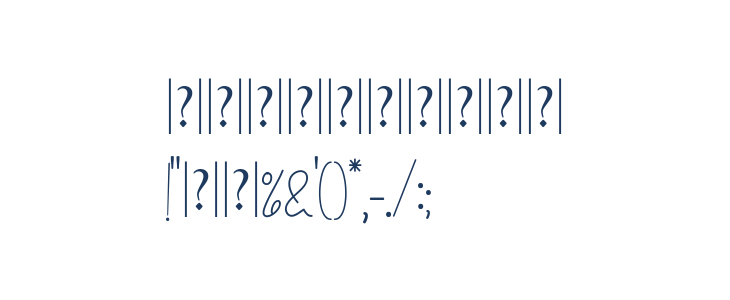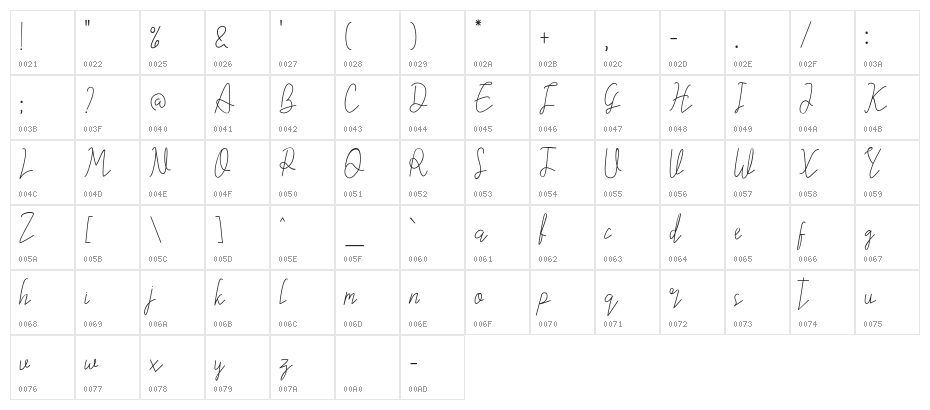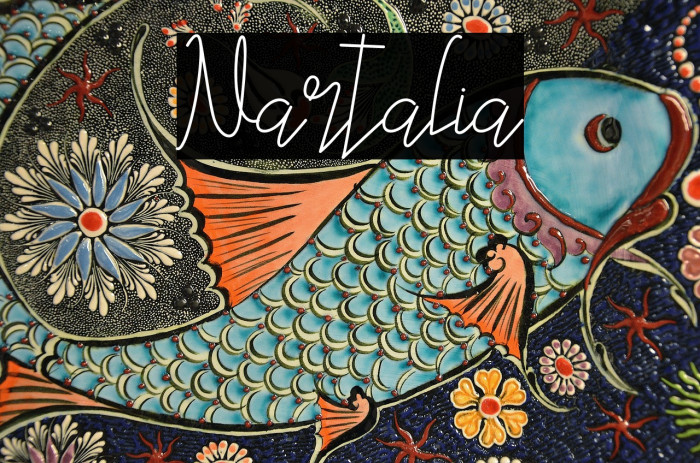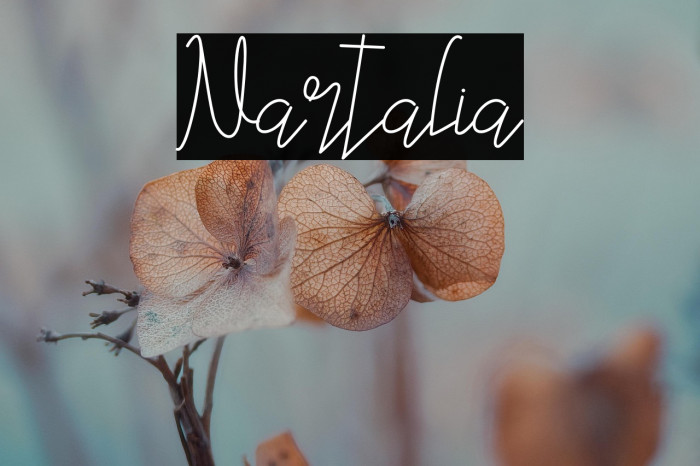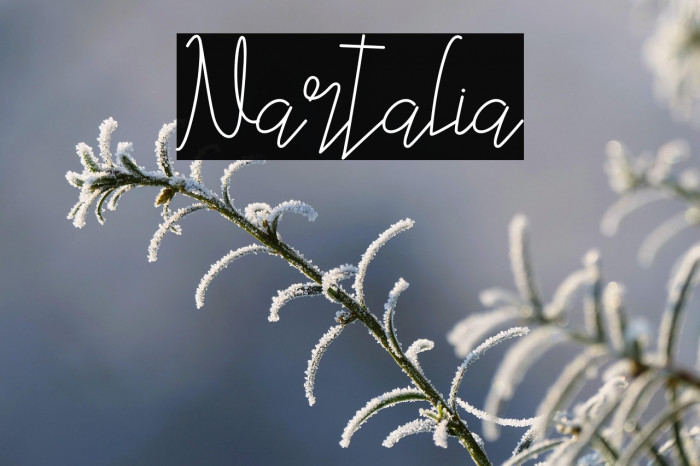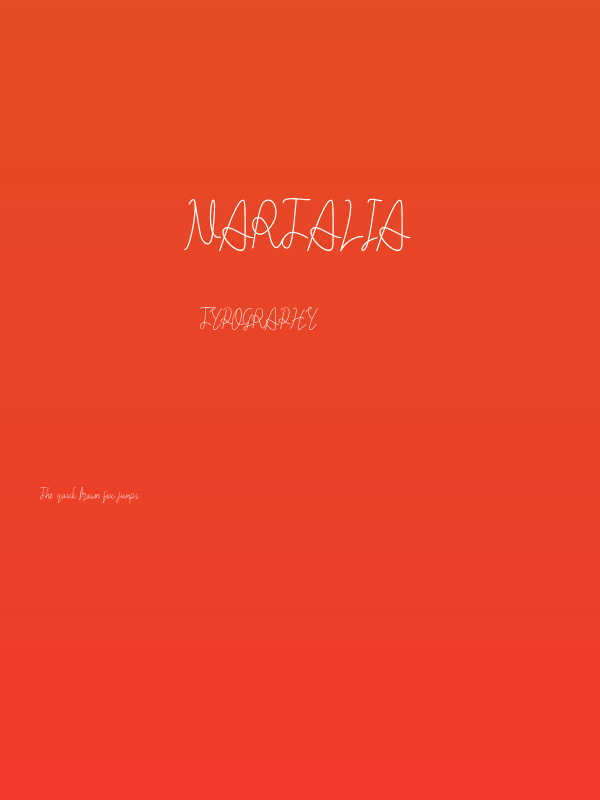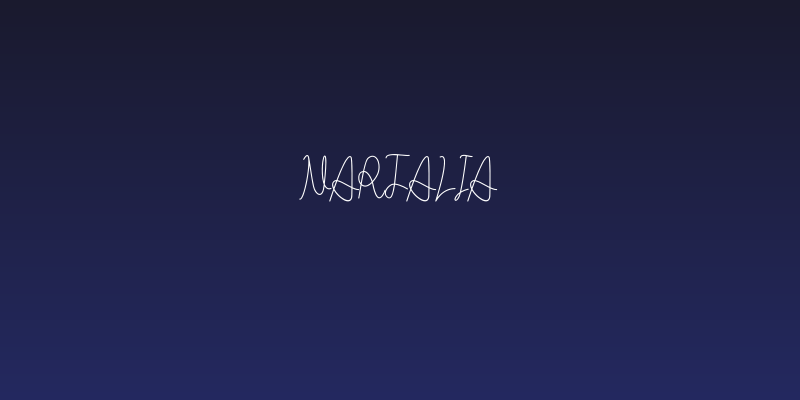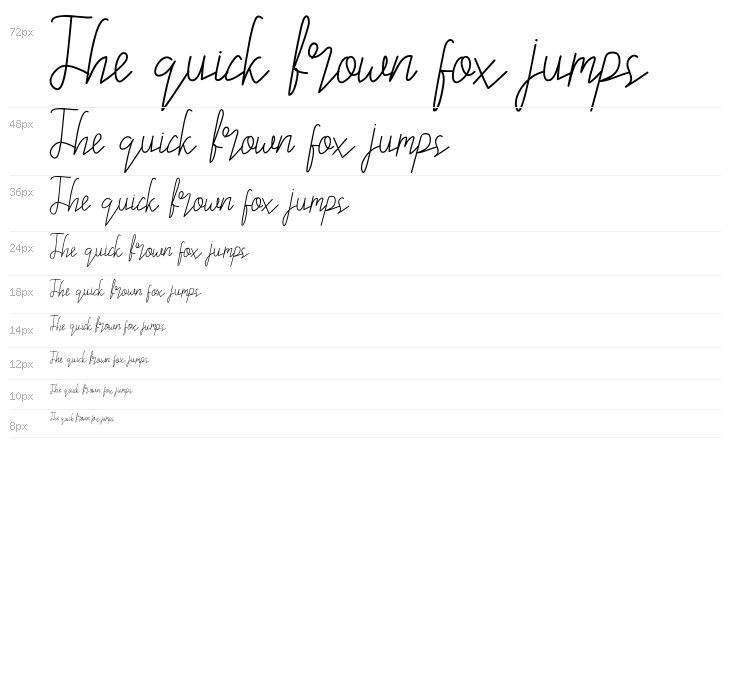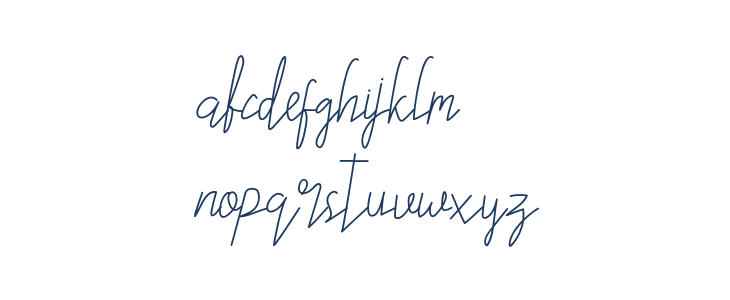
Nartalia Font
Nartalia Description
This font features a flowing, cursive style with elegant, looping strokes that give it a handwritten appearance. The uppercase letters are tall and slender, with a consistent slant that adds a sense of motion and fluidity. The lowercase letters maintain the same slant, with smooth connections between characters, enhancing the script-like quality. The numerals and special characters are designed to match the overall aesthetic, with similar curves and loops. This font exudes a sense of sophistication and grace, making it ideal for projects that require a personal touch.
| Overall Style | Elegant, Handwritten |
| Proposed Projects | Ideal for wedding invitations, greeting cards, personal branding, and elegant packaging designs. |